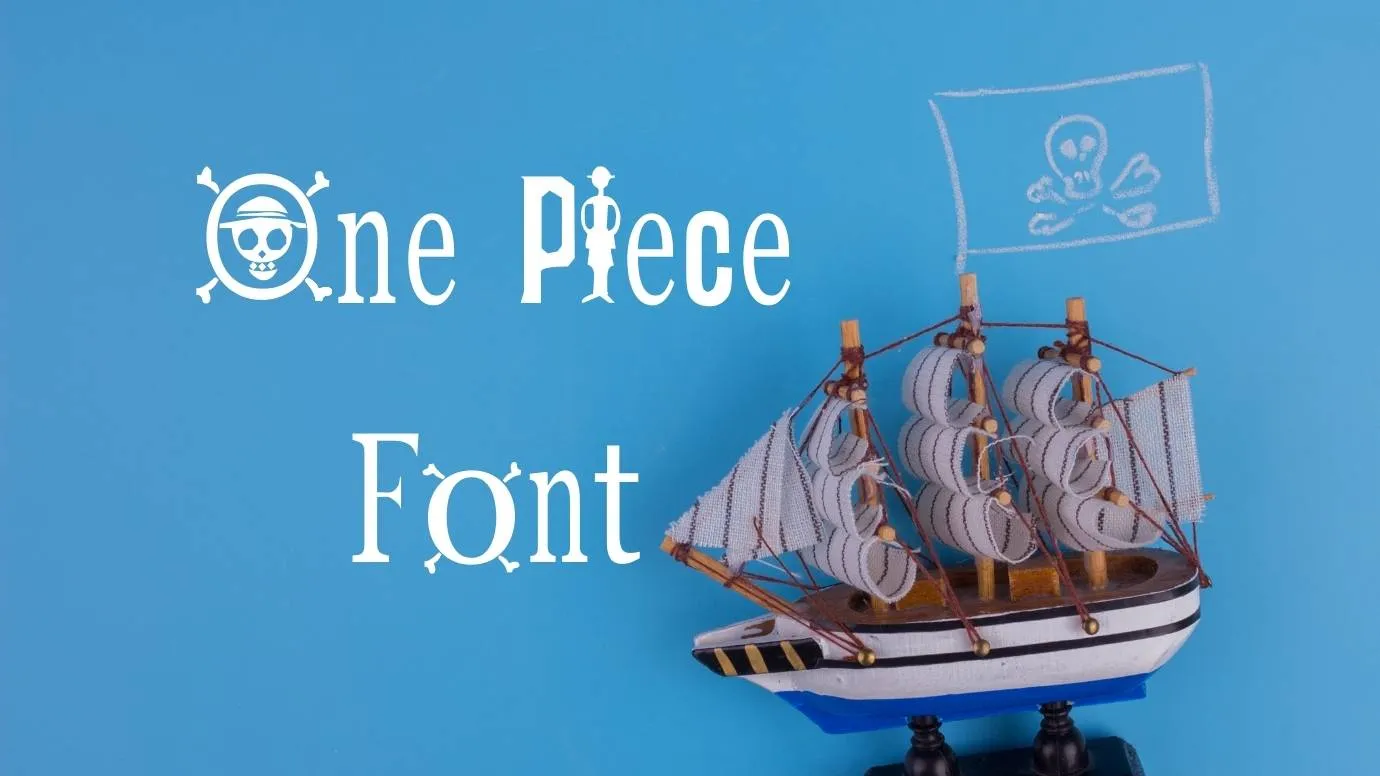
One Piece Font a new contemporary typeface that was designed and published by an excellent designer known as Phantom King Graphics. This typeface is basically designed for the logo of a Japanese Series named One Piece.
This typeface has uppercase, punctuation, lowercase, numerals, and a few special characters. It contains more than 50 glyphs with 1024 units/em. This logo font is available in OTF and TTF file formats.
| Type | Logo |
| Designer | Phantom King Graphics |